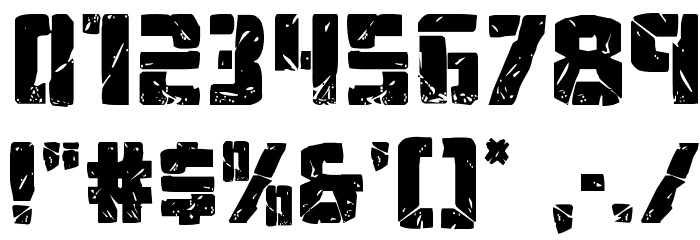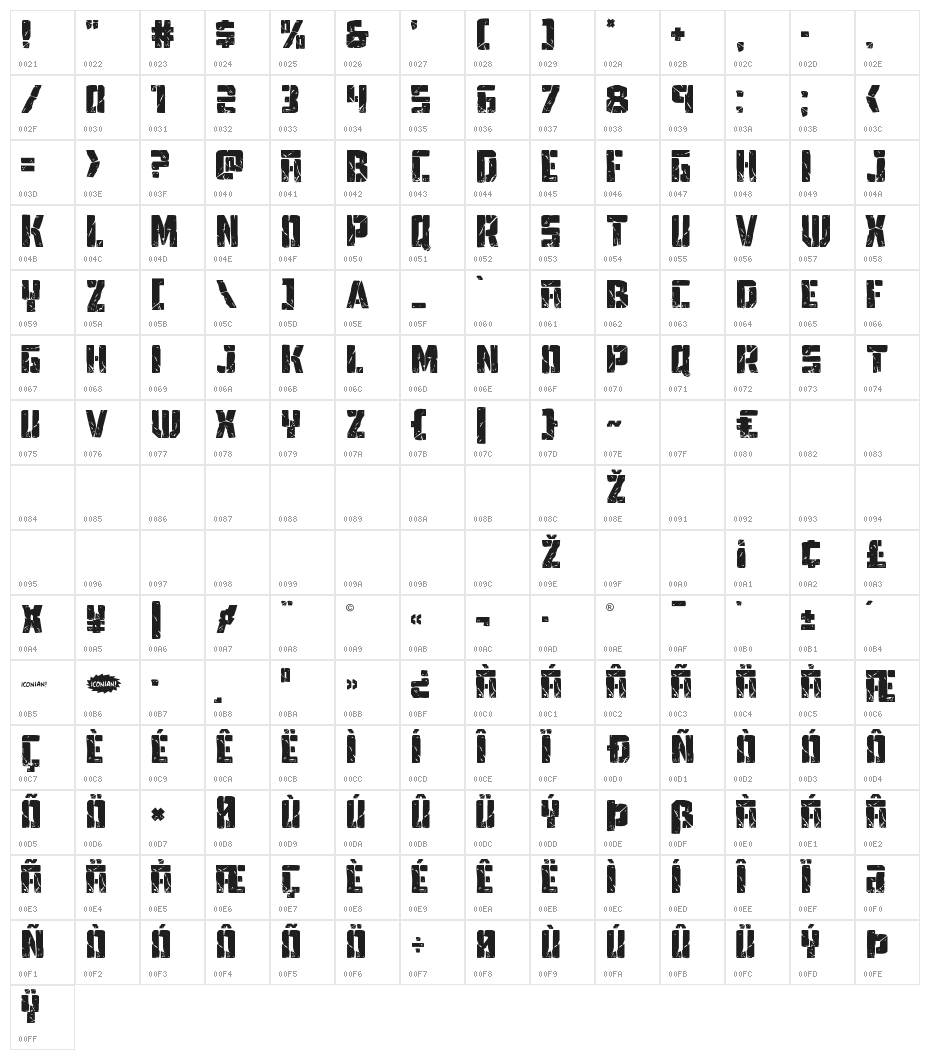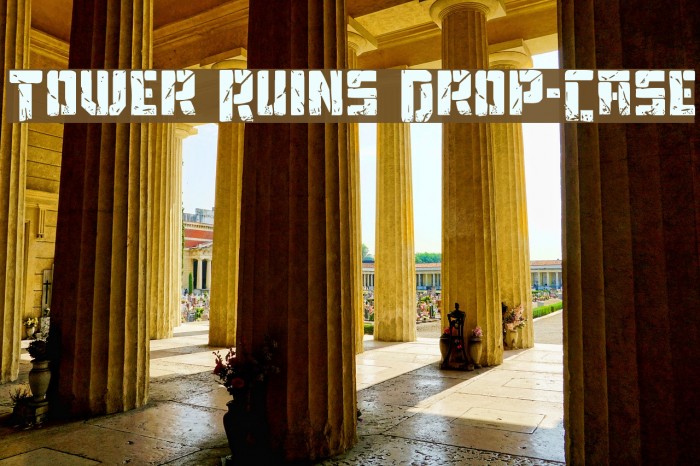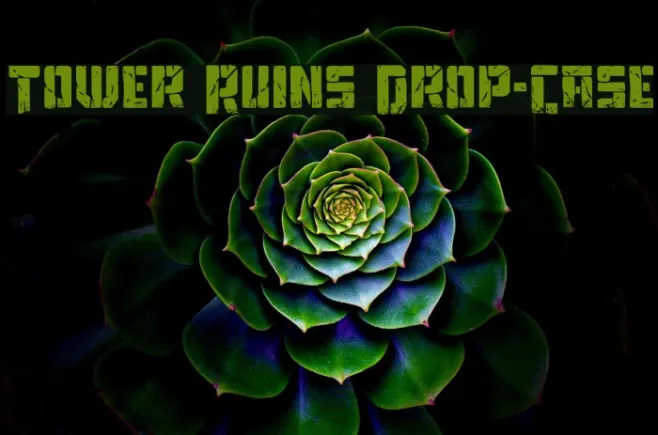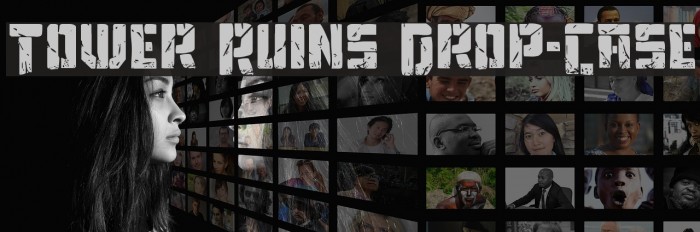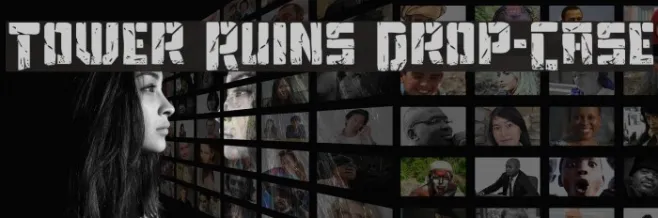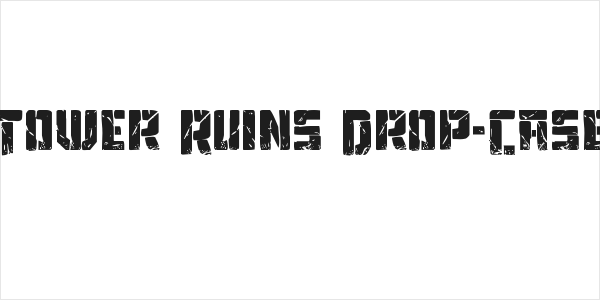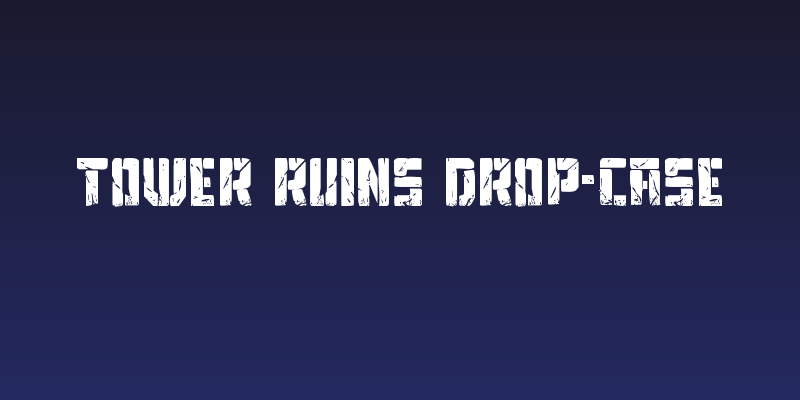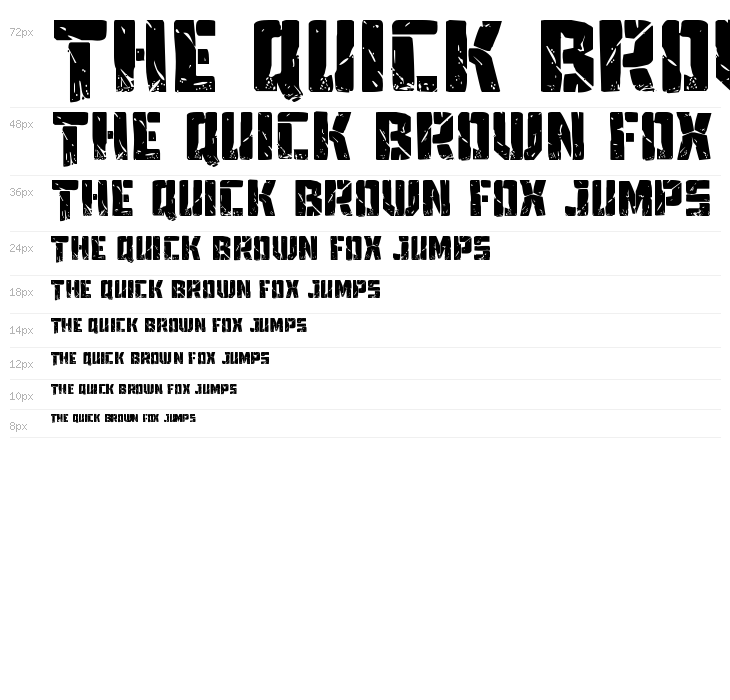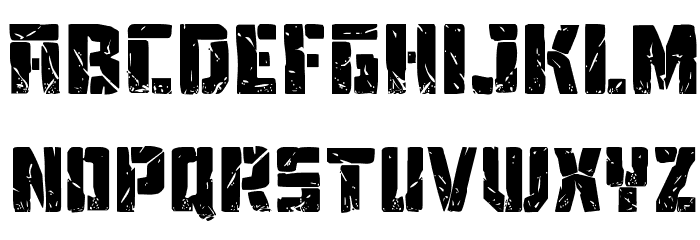
Tower Ruins Drop-Case Font
Tower Ruins Drop-Case Description
This font features a rugged, distressed appearance, reminiscent of weathered stone or crumbling ruins. Each character is bold and blocky, with irregular edges and a textured surface that suggests erosion or decay. The uppercase and lowercase letters maintain a consistent style, with the lowercase being slightly smaller but equally bold. Numbers and special characters follow the same aesthetic, ensuring a cohesive look across all elements. The font's unique style makes it stand out, ideal for projects that require a gritty, urban, or ancient feel.